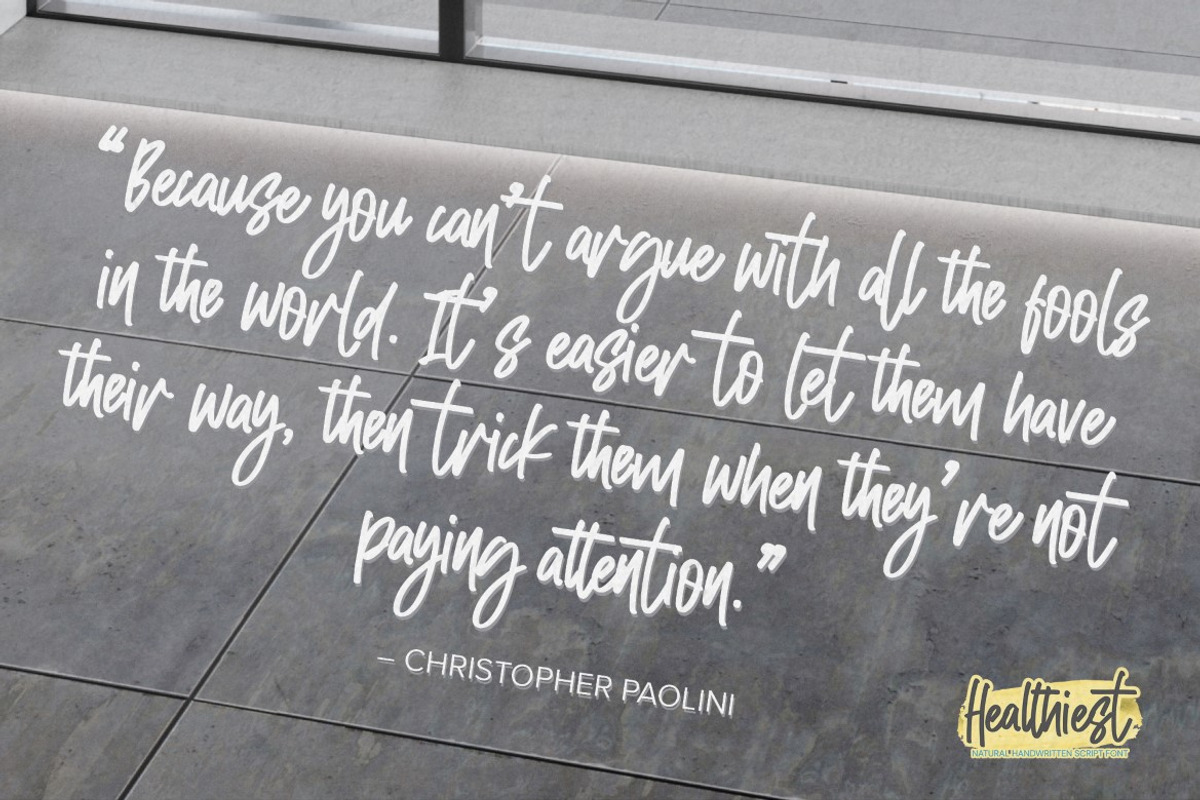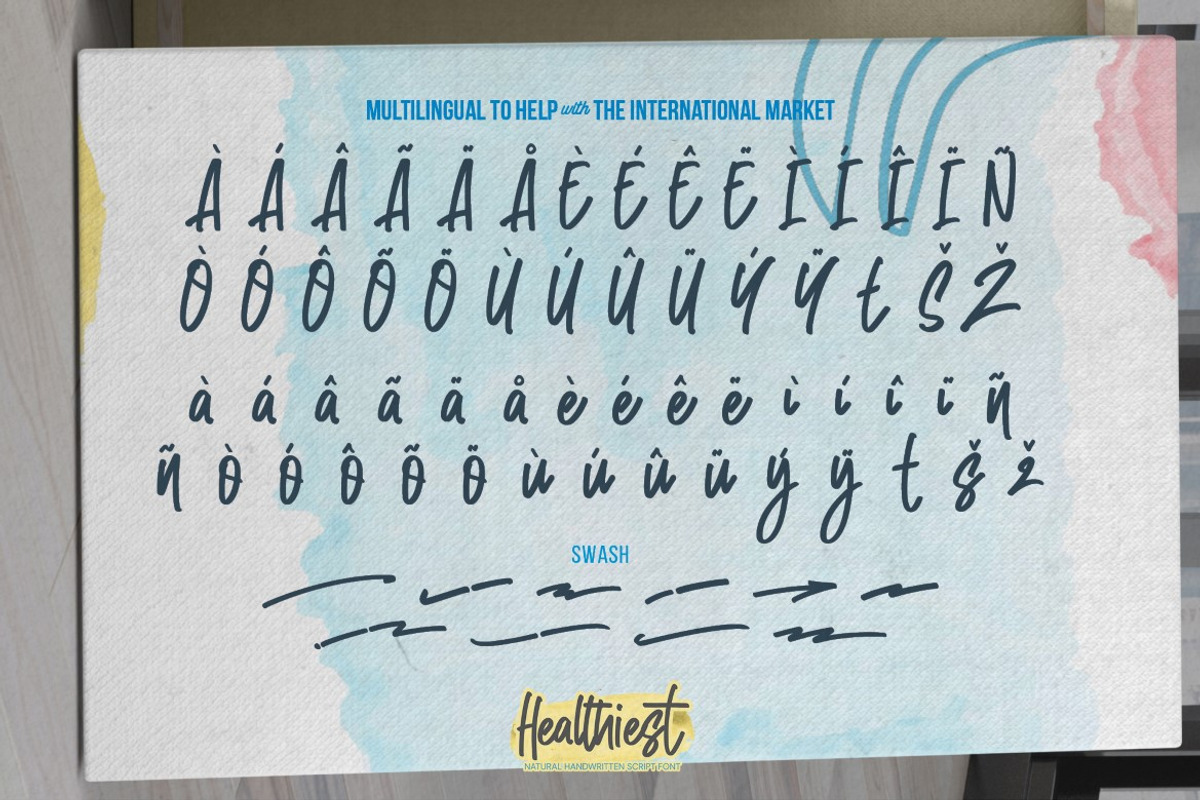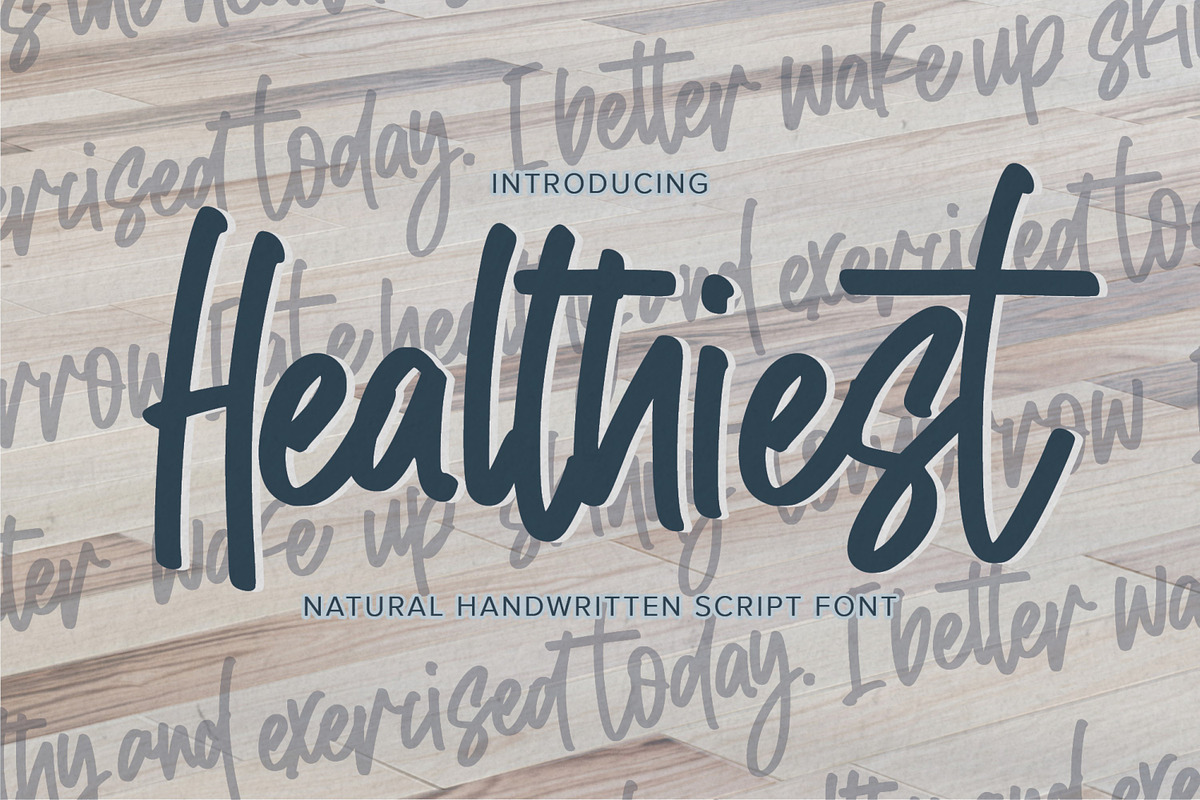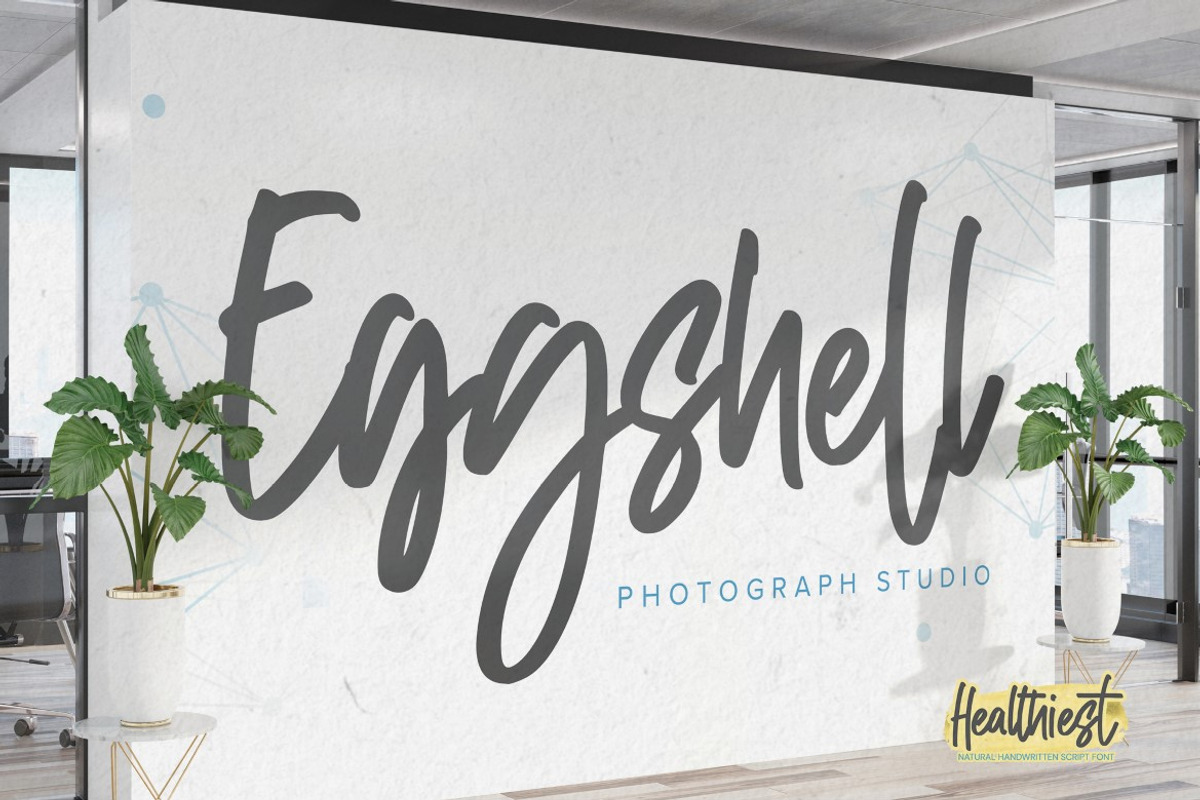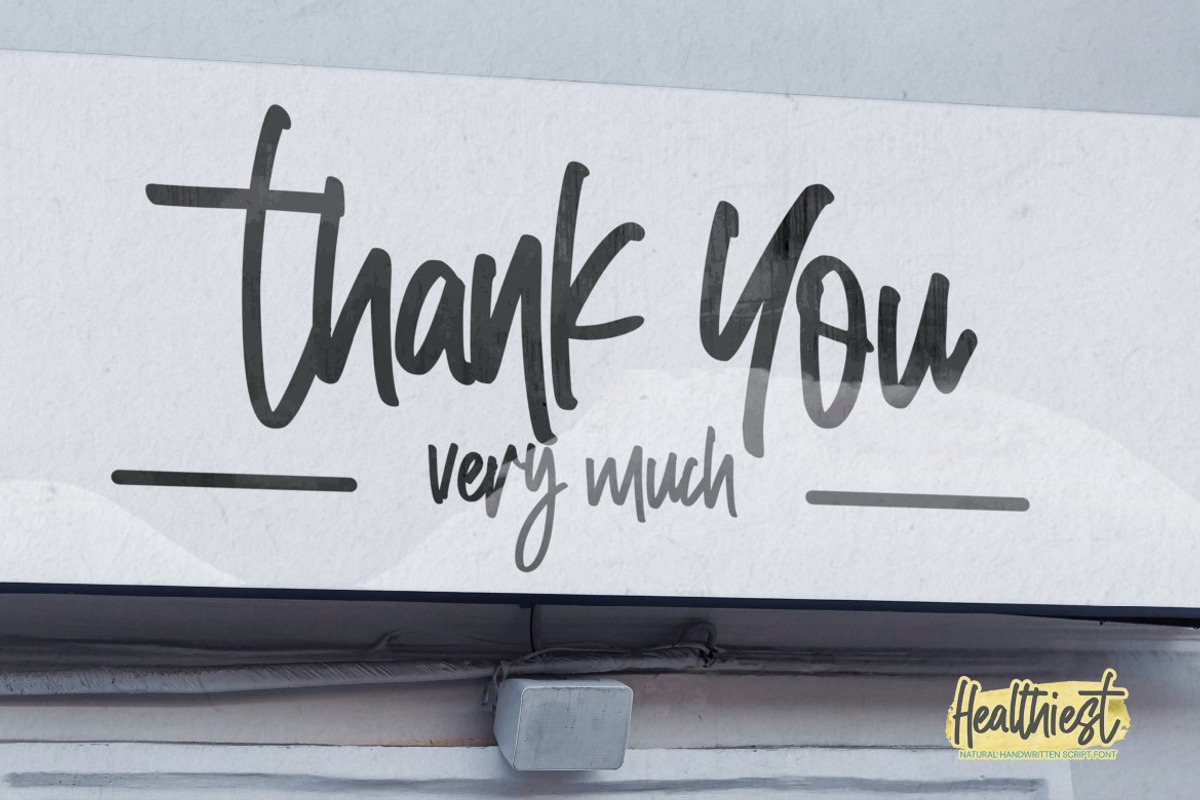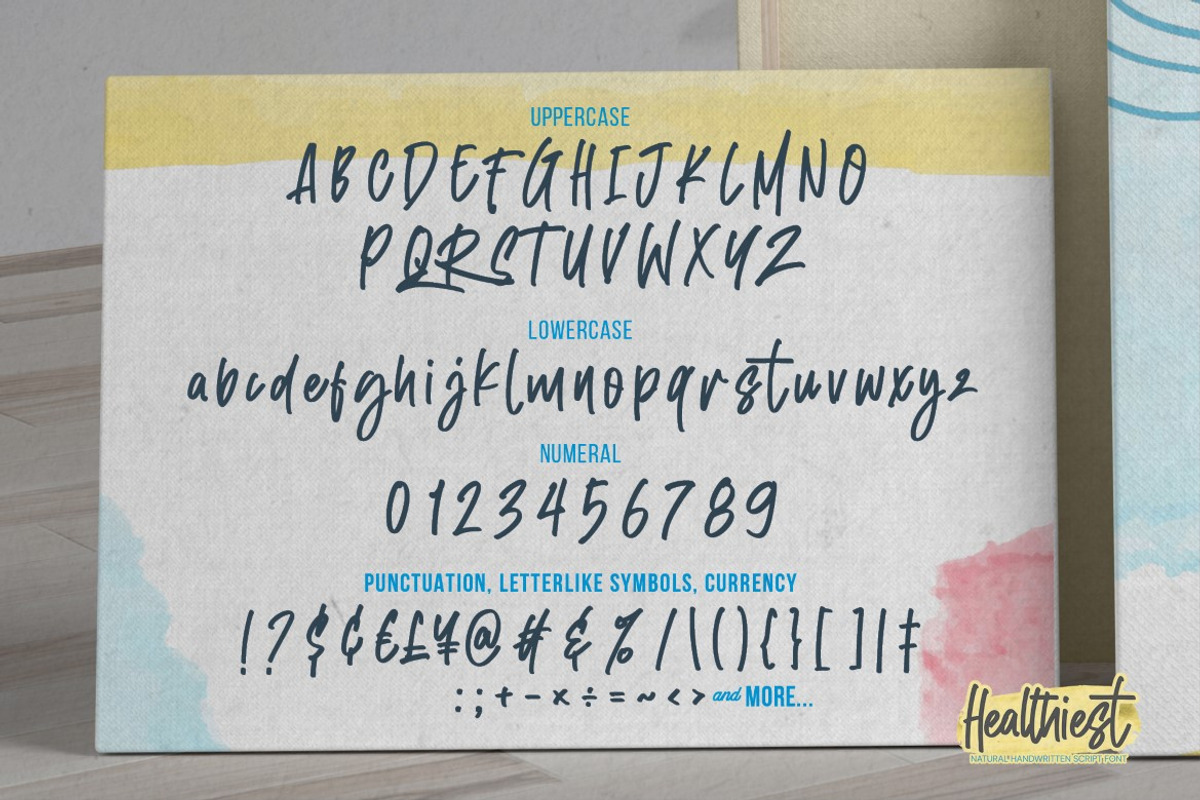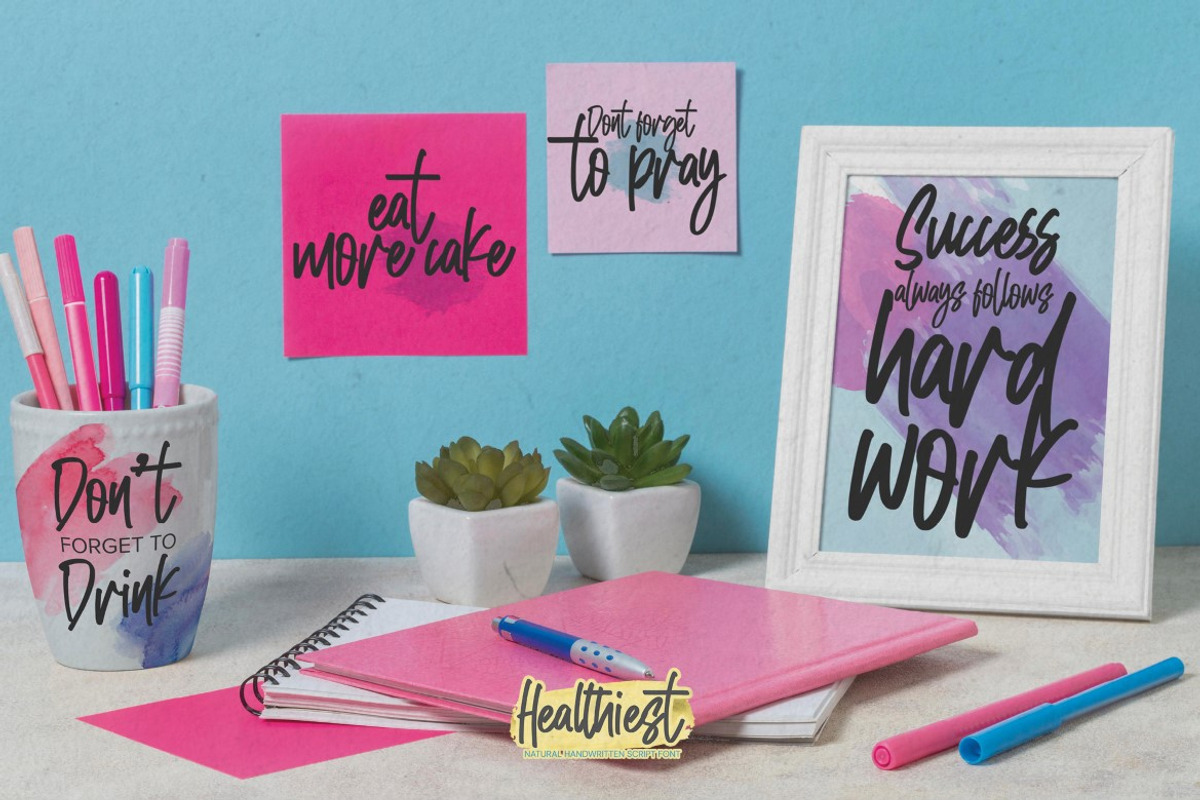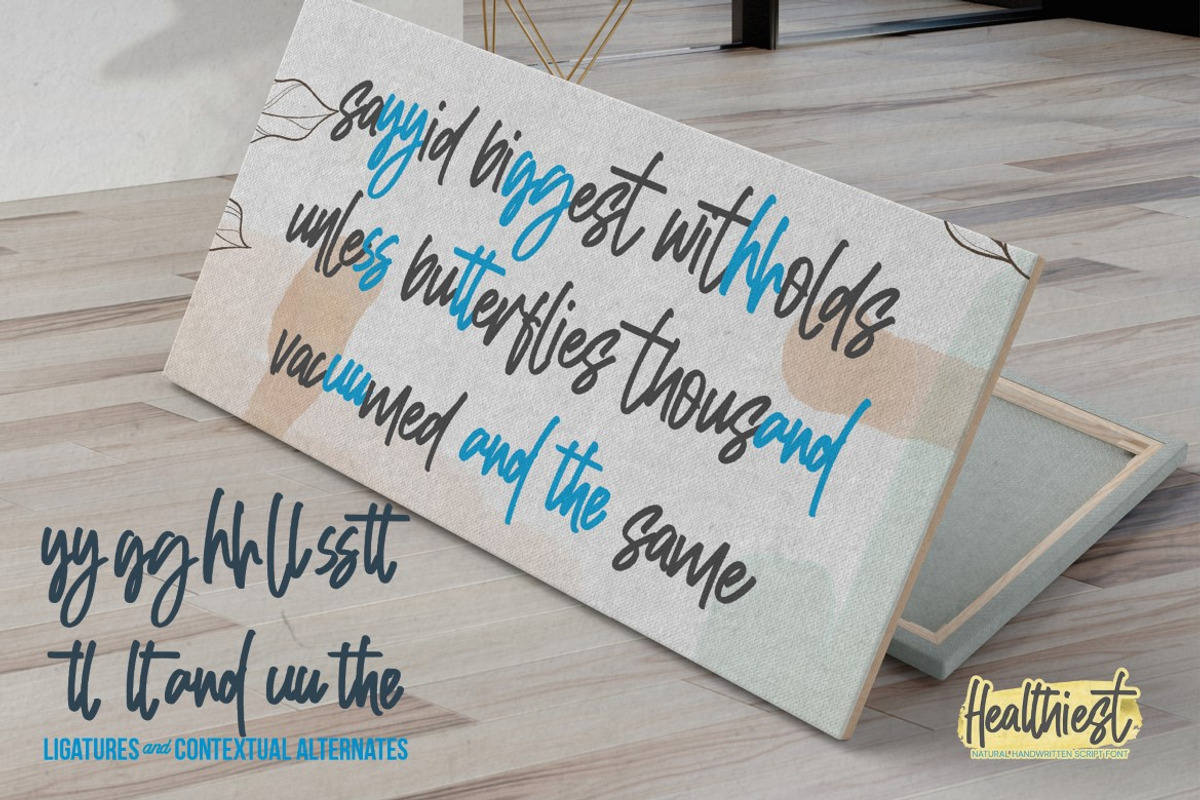
Healthiest - Natural Handwritten
Healthiest - Natural Hand Written Script Font that will make your designs look modern, unique and fun. It’s perfect for labels, quotes, posters, DIY projects, branding, packaging, greeting cards, websites, photography overlays, signs, window art, scrapbooking, tags and so much more!